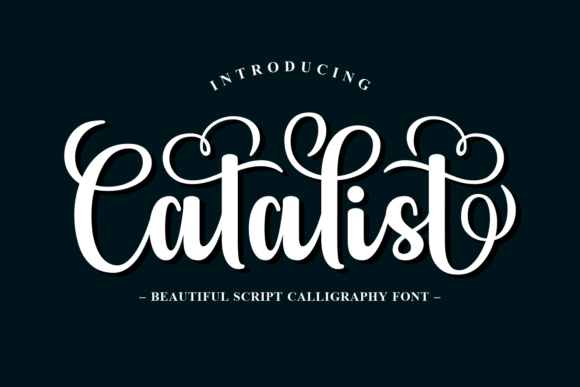
The Perfect Script Font for Heartfelt Designs
As a designer, have you ever found yourself staring at a blank page, searching for the perfect font to convey a sense of warmth and romance? You know, that feeling when a client asks you to create a wedding invitation or a birthday card that captures the essence of love and joy?
That’s where the Catalist Font comes in – a beautiful, bold script font that features elegant heart-shaped swashes. Its flowing letters add a touch of charm and romance, making it perfect for invitations, greeting cards, and any design that needs a warm, heartfelt feel. For designers, the Catalist Font is a valuable asset, offering a unique and versatile tool to express emotions and create meaningful connections with their audience.
Catalist Font Key Features
- Unique Characteristics: Catalist Font features a unique blend of modern and traditional elements, making it suitable for a wide range of design applications, from corporate identity to editorial content.
Catalist Font Review
As a designer, I’ve had the chance to work with a wide range of fonts, but the Catalist Font has left a lasting impression on me. Here’s what I think:
- Unique aesthetic: The Catalist Font has a distinctive, modern look that sets it apart from more traditional fonts.
- Highly legible: The font’s clean lines and well-balanced proportions make it easy to read, even at small sizes.
- Wide range of uses: From headlines to body text, the Catalist Font is versatile and can be used in a variety of contexts.
- Lack of bold weights: While the font has a range of weights, the bold options feel somewhat lacking in depth and contrast.
- Not ideal for small text: While the font is legible, it can start to feel a bit cramped at very small sizes.
Overall, the Catalist Font is a solid choice for designers looking for a modern, versatile font. While it may not excel in every area, its unique aesthetic and high legibility make it a great addition to any design arsenal.
To get the most out of Catalist Font, use it in combination with bold or italic styles for emphasis. You can also use it in conjunction with other fonts to create a visually appealing typography.
Catalist Font is commonly used for:
– Headings and titles
– Digital signage and advertising
– Editorial and publishing projects
Alternatives to Catalist Font for Designers
Open Sans is a modern sans-serif font that is highly legible and suitable for both digital and print media. It is a great choice for body text, especially when a clean and simple look is desired.
Comparison to Catalist Font: Open Sans is more modern and has a cleaner design, whereas Catalist Font has a more rounded and friendly feel. Use Open Sans when you need a professional and minimalistic look.
Lato is a sans-serif font that is highly customizable and suitable for various design applications. It has a strong and modern feel that makes it perfect for headings and titles.
Comparison to Catalist Font: Lato is more geometric and has a stronger personality, whereas Catalist Font is more rounded and friendly. Use Lato when you need a bold and eye-catching look.
Montserrat is a sans-serif font that is highly legible and suitable for both digital and print media. It has a strong and urban feel that makes it perfect for headings and titles.
Comparison to Catalist Font: Montserrat is more geometric and has a stronger personality, whereas Catalist Font is more rounded and friendly. Use Montserrat when you need a modern and edgy look.